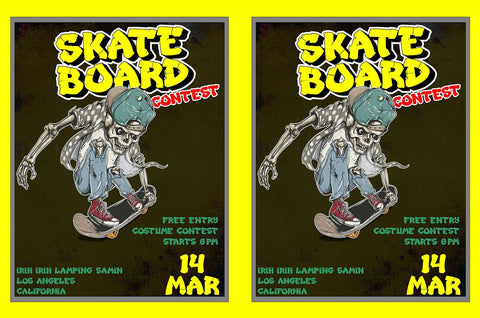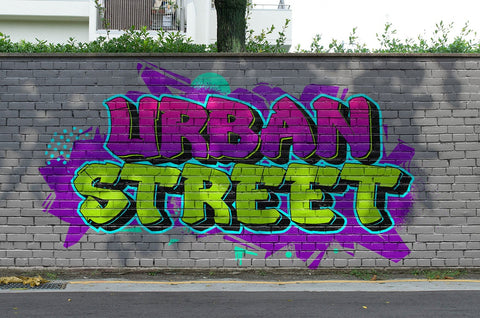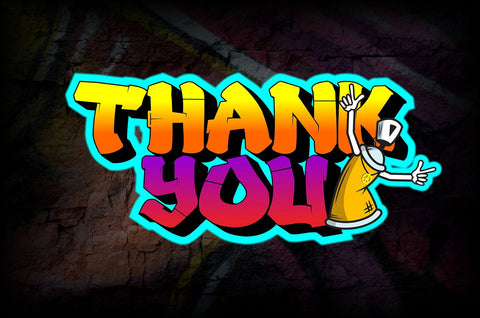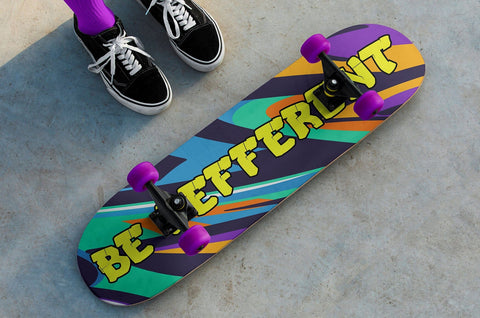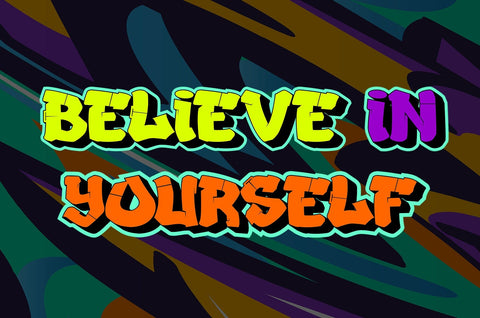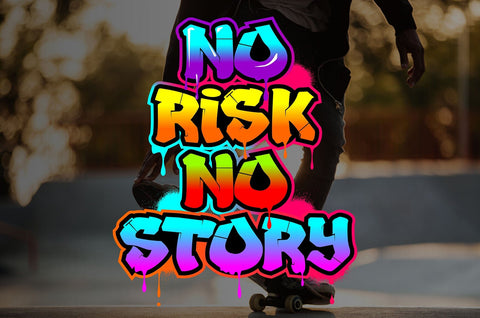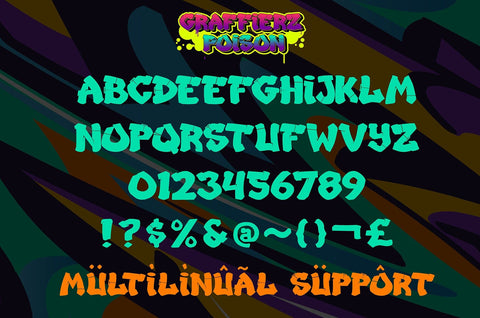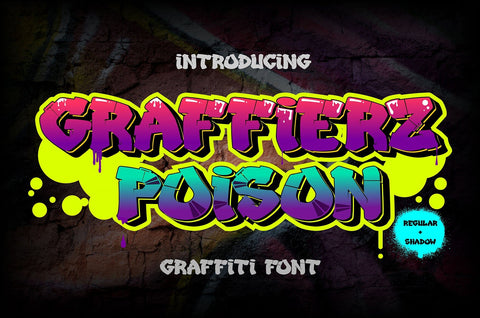
Graffierz Poison - 3d Graffiti Font
Graffierz Poison is an urban graffiti font characterized by sharp edges and a bold look. Ideal for music posters, apparel designs, shirts, and streetwear, this font brings a touch of edginess to your projects. The unique style of "Graffierz Poison " makes it the perfect choice for death metal or urban graffiti themes. Whether you want to create a strong and powerful statement or simply add a touch of attitude to your designs, "Graffierz Poison" is the font for you.
- Graffiti Characters looks